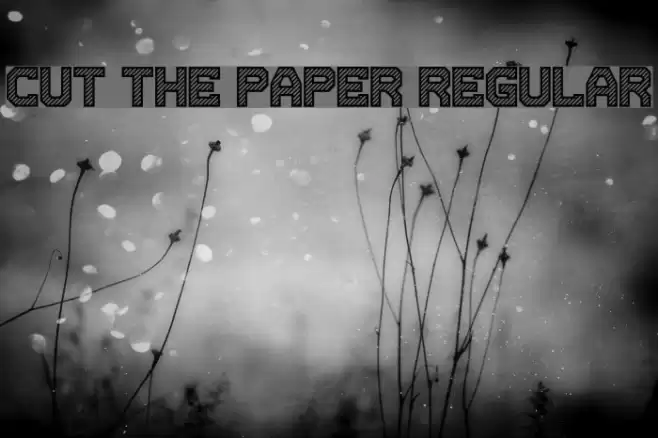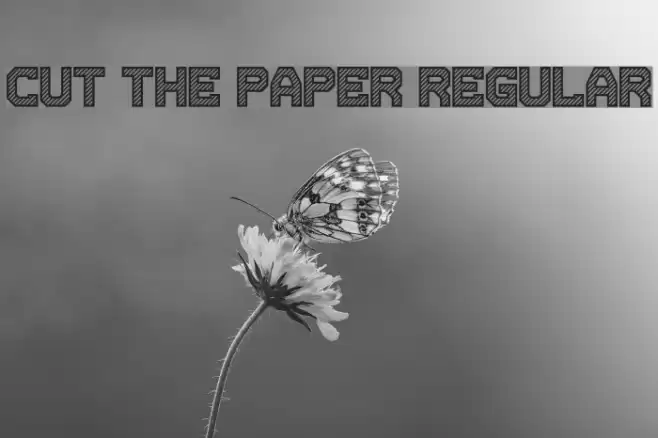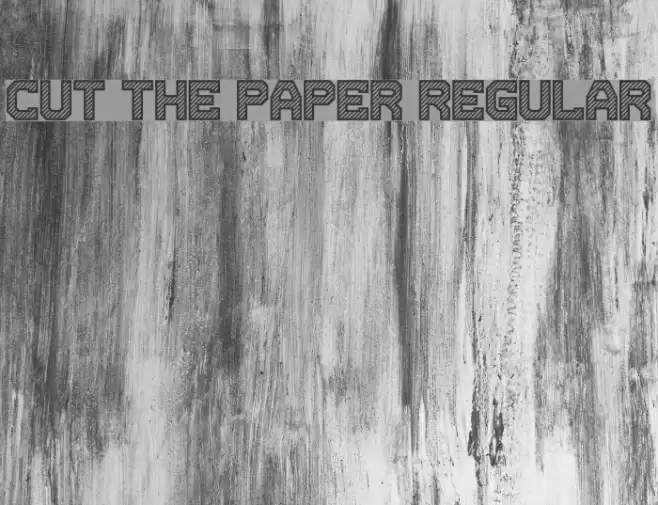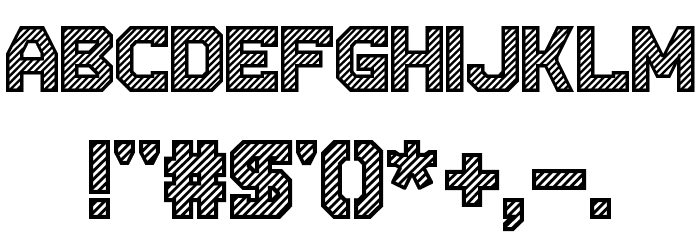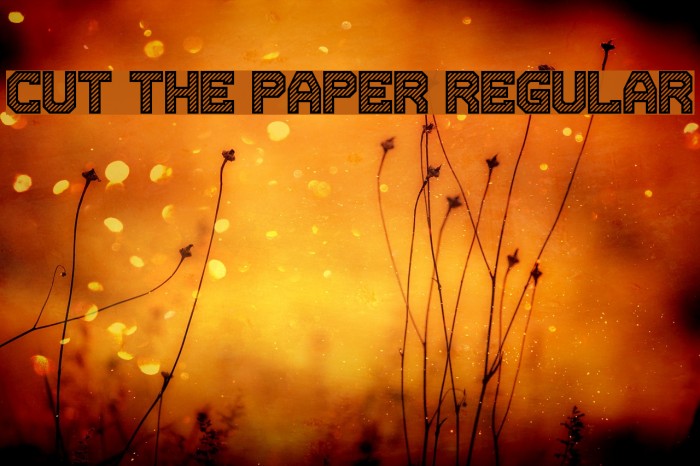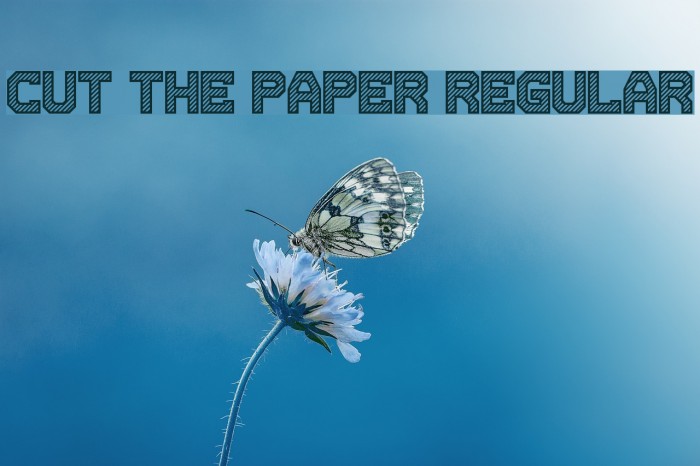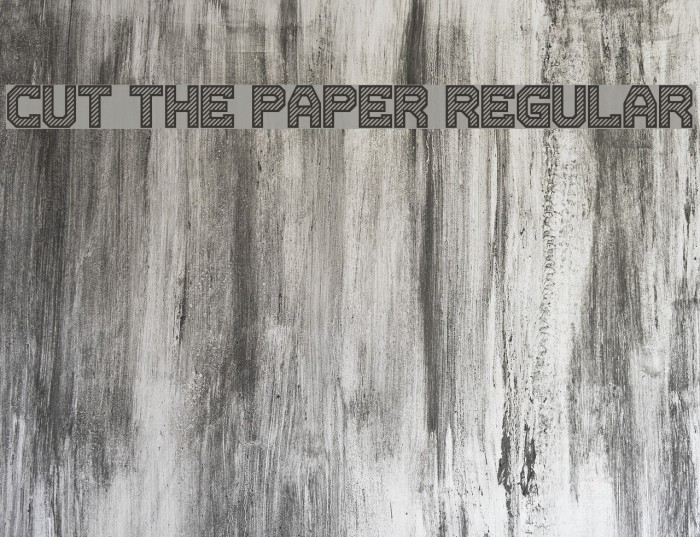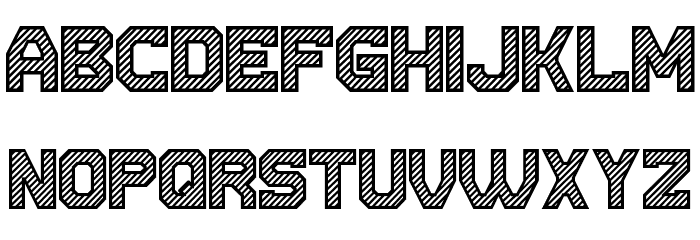
Cut the paper Regular Font
Cut the paper Regular Description
This font features a bold, decorative style with a unique cut-out pattern that resembles paper cuttings. The letters are uppercase and have a distinct striped texture within each character, giving it a playful and artistic appearance. The geometric shapes and clean lines make it stand out, while the consistent pattern across all characters ensures a cohesive look. This font is ideal for creative projects that require a bold statement, as its eye-catching design draws attention immediately. The spacing between characters is normal, allowing for readability despite the intricate design. The font's style is modern and innovative, perfect for adding a touch of creativity to any design.
A bold, decorative font with a unique cut-out pattern and striped texture from Uncategorized fonts.
- Proposed Projects: Ideal for posters, headlines, branding, and any creative design projects that require a bold and artistic touch.
- Overall Style: Modern, Decorative